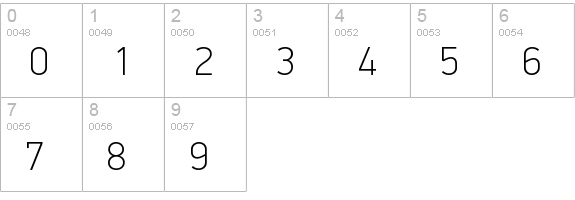
PFDinDisplayPro-Thin is a delicate, low-contrast variant in the PFDinDisplayPro typeface family \xE2\x80\x94 well suited to fashion editorial, minimal branding, and high-contrast display.
PFDinDisplayPro-Thin font is a sleek and modern typeface that exudes elegance and sophistication. With its thin weight and clean lines, this font is perfect for adding a touch of refinement to any design project. The delicate strokes and precise letterforms make PFDinDisplayPro-Thin a versatile choice for a wide range of applications, from branding to editorial design. What makes PFDinDisplayPro-Thin even more appealing is that it is available for free download at FontsMarket.com. This means you can easily access this stunning font and incorporate it into your creative projects without any cost. Don't miss out on the opportunity to elevate your designs with the timeless beauty of PFDinDisplayPro-Thin. Download it today and see the difference it can make in your work.